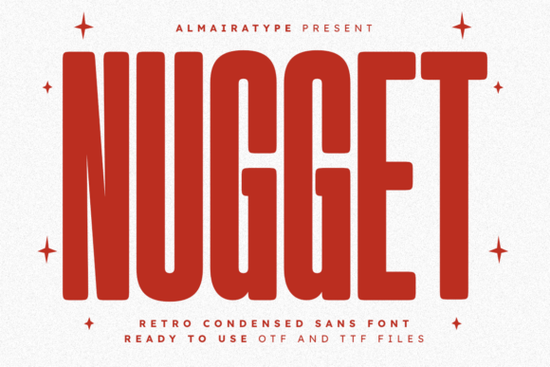
The Nugget Font is a standout choice for anyone looking to add a retro yet modern vibe to their design projects. With its bold and condensed structure, this sans-serif typeface brings a unique energy that works well across a variety of applications. Whether you're designing for print, digital, or craft projects, Nugget offers a versatile and stylish solution that stands out without being overwhelming.
Designed with high-impact visual storytelling in mind, the Nugget Font combines the charm of vintage typography with a clean, contemporary feel. Its tall and solid form makes it ideal for headlines, logos, and branding materials where clarity and presence are key. The slightly rounded edges give it a warm, approachable character that feels familiar yet fresh, making it a great fit for both traditional and modern design aesthetics.
For graphic designers, clothing brands, and print-on-demand entrepreneurs, Nugget provides an easy way to inject personality into their work. It’s especially effective for creating eye-catching t-shirts, social media graphics, and other promotional materials. The font maintains excellent readability even at smaller sizes, ensuring that your message comes through clearly without sacrificing style.
Why Nugget Font Works Well for Different Projects
One of the biggest advantages of the Nugget Font is its adaptability. It can be used in a wide range of design contexts, from packaging to signage, without losing its distinct character. Its condensed shape helps save space while still making a strong visual statement, which is particularly useful when working with limited real estate on a page or screen.
Crafters will also appreciate how well Nugget performs in vinyl cutting projects using tools like Cricut or Silhouette. The smooth, consistent lines ensure a professional finish on stickers, mugs, and personalized gifts. This makes it a go-to font for DIY enthusiasts and small business owners who want to create high-quality, custom products efficiently.
How to Use Nugget Font in Your Design Workflow
If you're new to using condensed sans-serif fonts, Nugget is a great starting point. Its balance of retro flair and modern simplicity means it pairs well with other typefaces, allowing you to create visually interesting layouts without clashing. For example, pairing it with a more traditional serif font can add contrast and depth to your designs.
When working with digital platforms, consider how Nugget looks on different screens and backgrounds. Its boldness ensures it remains legible even in low-light conditions or on mobile devices. For print projects, make sure to test the font at various sizes to confirm it meets your design needs.
Whether you're working on a personal project or building a brand, the Nugget Font offers a powerful combination of style and functionality. Its ability to blend nostalgia with modern design makes it a valuable addition to any designer's toolkit. Try it out and see how it can bring a fresh, confident look to your next creation.